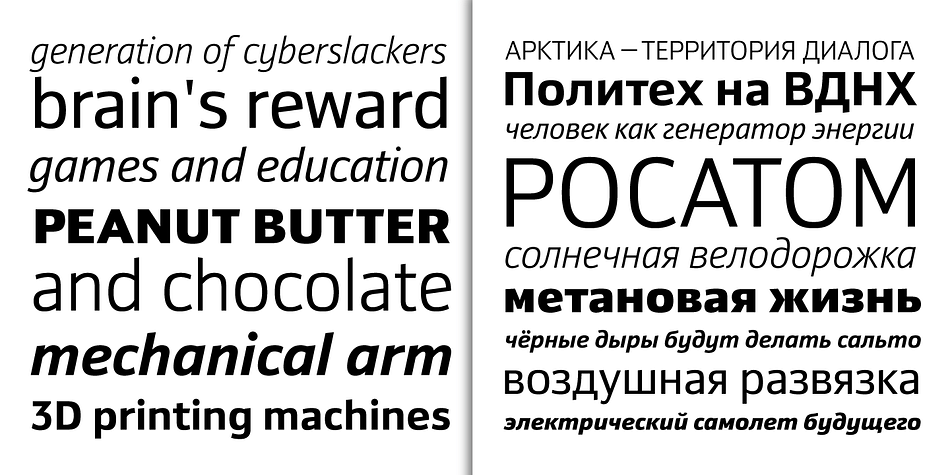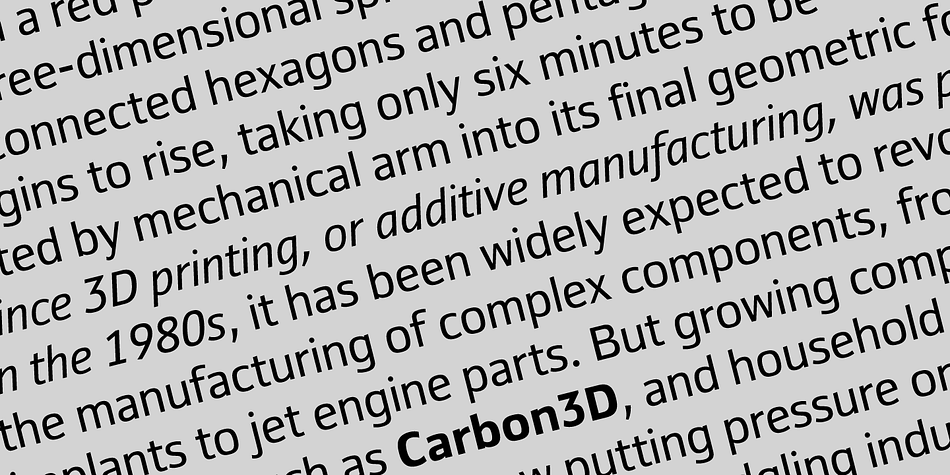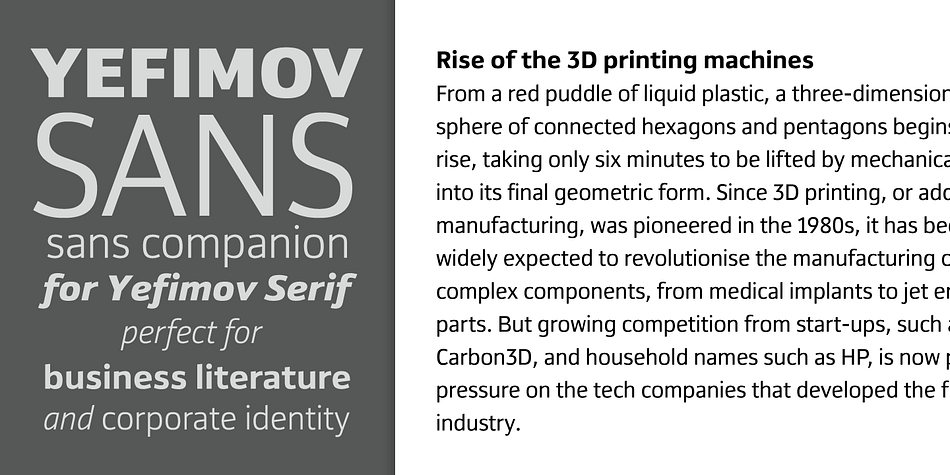
Designed by Alexandra Korolkova, Maria Selezeneva and Vladimir Yefimov, Yefimov Sans is a sans serif font family. This typeface has eight styles and was published by ParaType.
Yefimov Sans is a sans companion for Yefimov Serif. It is one of the last original faces by Vladimir Yefimov. It has contemporary design, squarish shapes of the round letters and legible proportions. Thanks to open aperture, it works well in small point sizes, and its distinctive letterforms make it good also for display purposes. The typeface was completed by Maria Selezeneva and Alexandra Korolkova. Released by ParaType in 2015.
Designers | Alexandra Korolkova, Maria Selezeneva, Vladimir Yefimov |